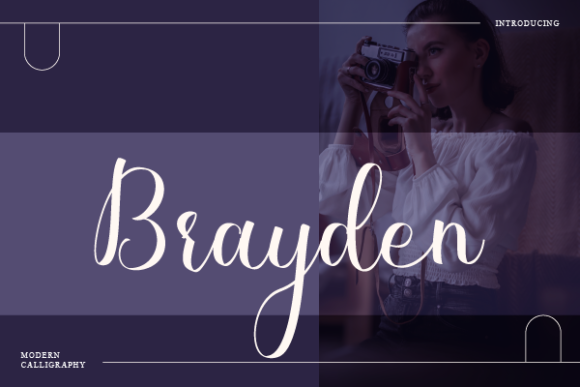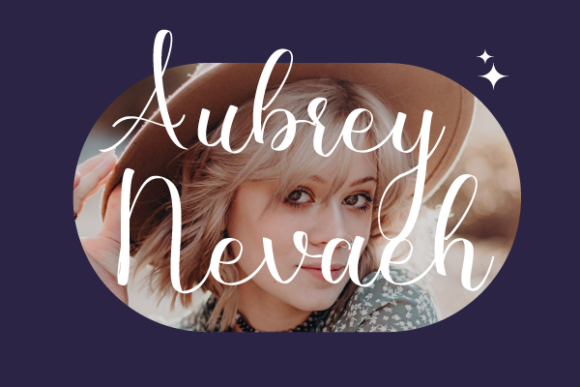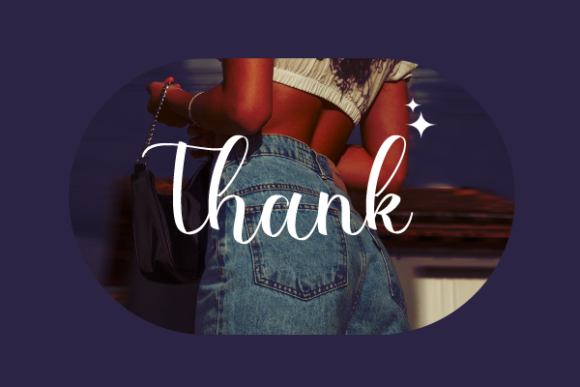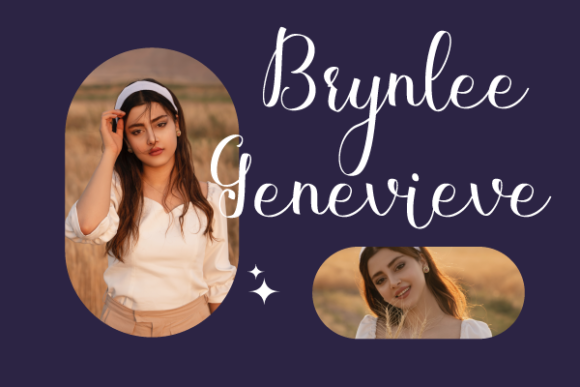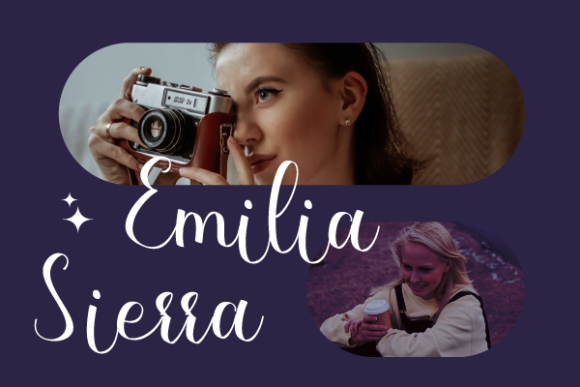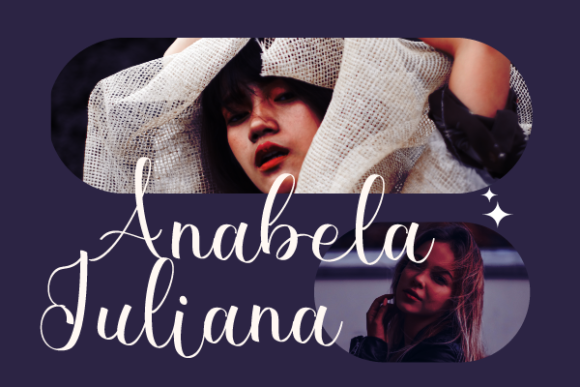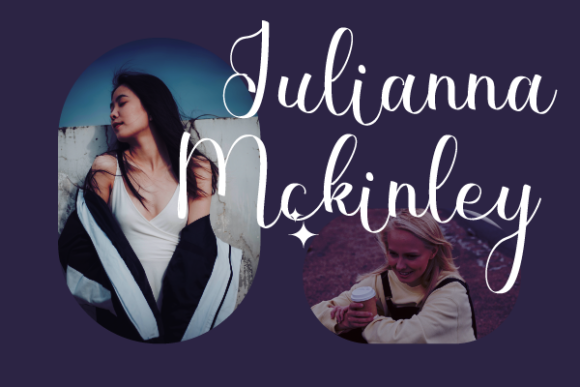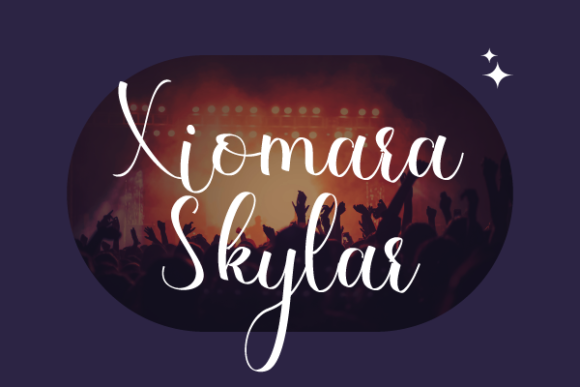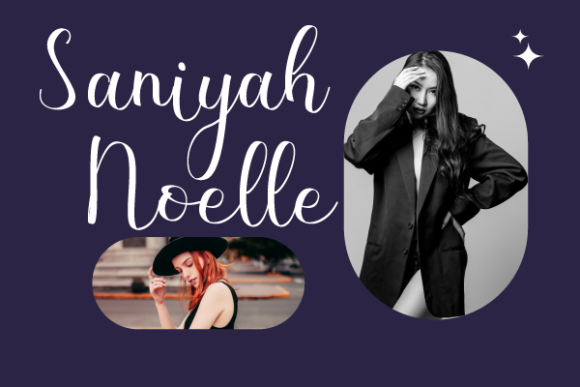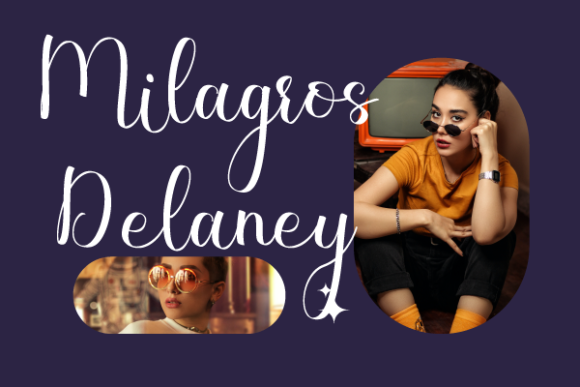
Brayden Font
About Brayden Font
Brayden is a distinct and graceful script font. It looks stunning on wedding invitations, thank you cards, quotes, greeting cards, logos, business cards and every other design which needs a handwritten touch.